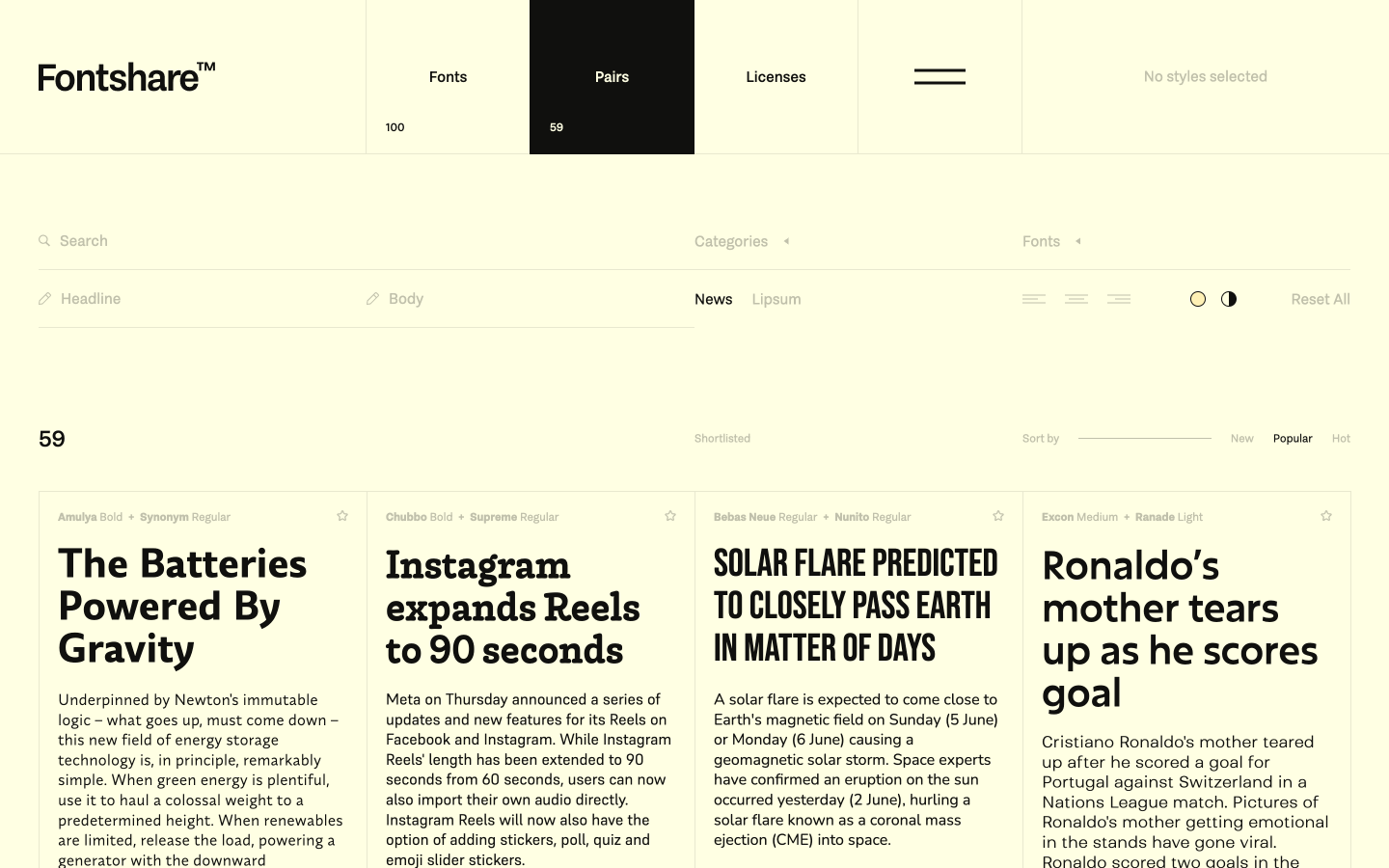
Fontshare is a free type library from Indian Type Foundry, featuring 100 quality typefaces, variable fonts, and curated pairings built for all designers.
The Indian Type Foundry launched Fontshare as an answer to a real problem: designers working on tight budgets often settle for low-quality fonts or risk licensing violations. The platform removes that friction entirely. Every typeface on Fontshare downloads free, and the ITF Free Font License covers personal and commercial use without restrictions on print, digital, or broadcast work.
The catalog currently holds 100 families. Most carry the Fontshare Originals label, meaning they were designed in-house at ITF specifically for this platform. Satoshi, one of the most downloaded families, is a geometric grotesque available in 10 styles and a variable font file. The variable version lets designers control weight along a continuous axis — useful for responsive typography where a single file must span multiple contexts.
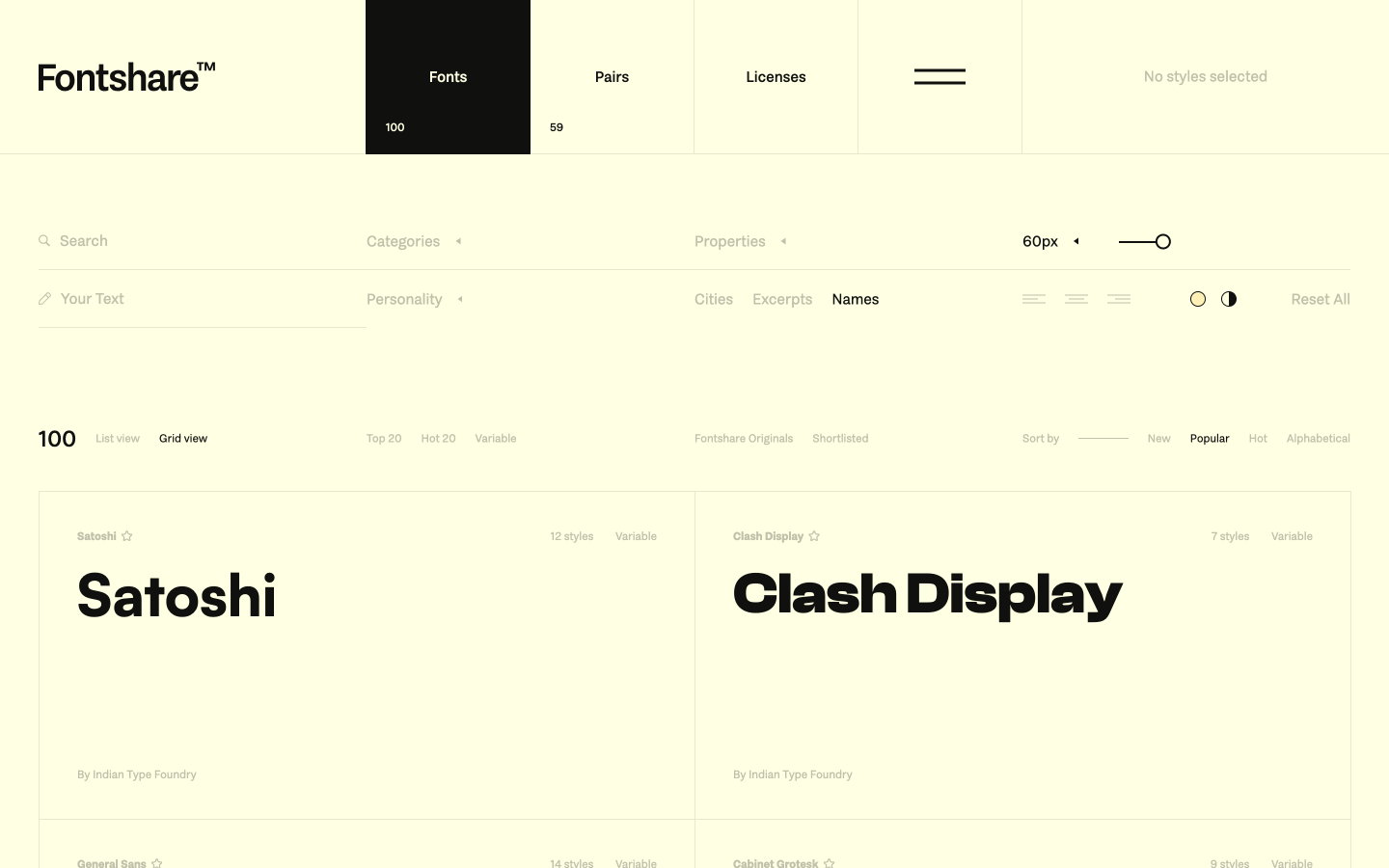
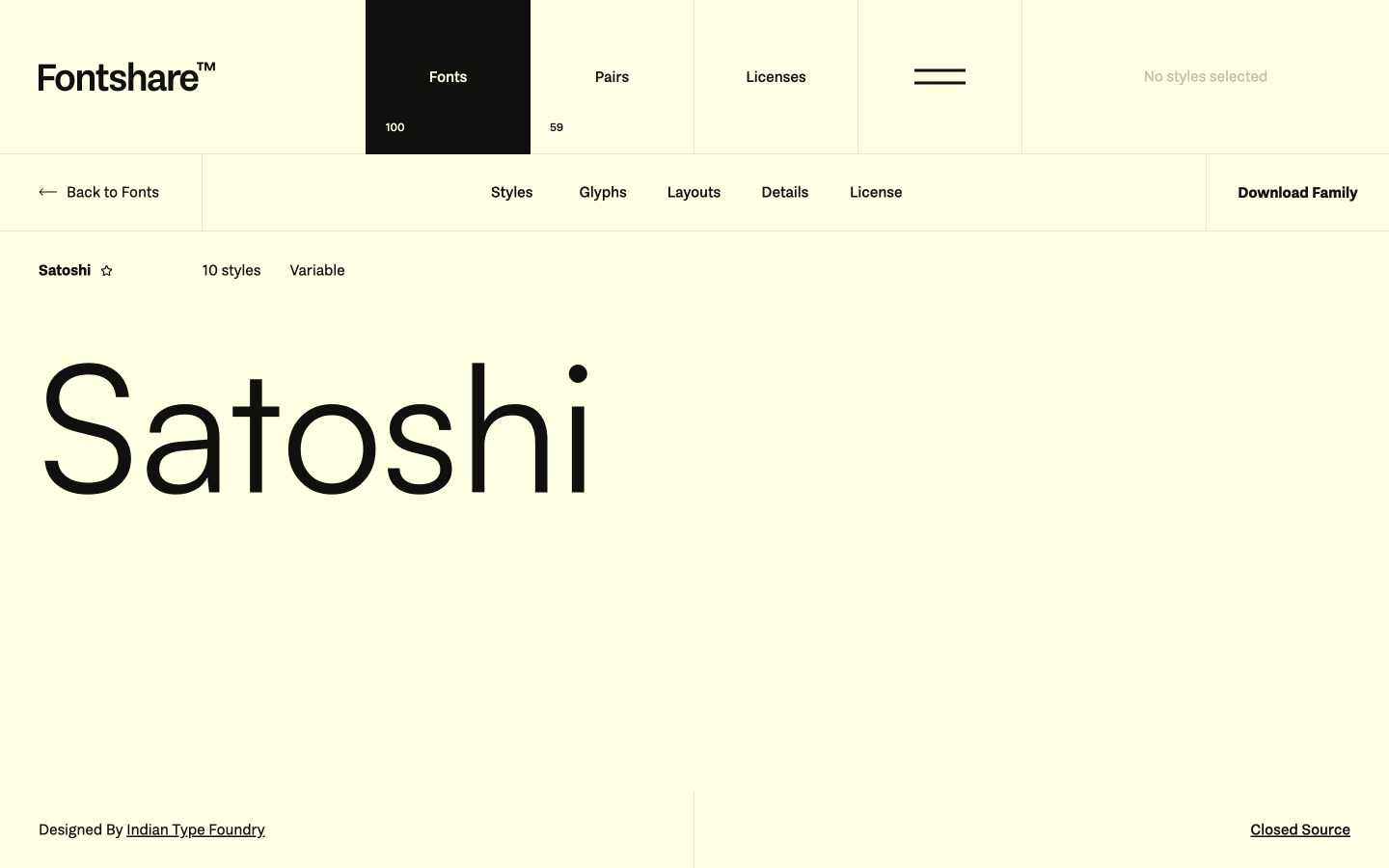
Browsing Free Fonts on Fontshare
Clash Display sits at the opposite end of the spectrum from Satoshi. Its letterforms push into ultra-wide territory at heavy weights, and the contrast between thick and thin strokes is deliberate and sharp. General Sans takes a more neutral approach: it reads cleanly at body sizes while holding its own as a display face when scaled up. Cabinet Grotesk adds optical variety, with softened terminals that give it a friendlier tone than a strict geometric sans.
The browse interface reflects the same typographic care as the fonts themselves. A size slider adjusts preview scale from 10px to 200px. Specimen modes switch between names, city names, excerpts, and user-entered text. A Pairs section offers 59 curated font combinations — each rendered as a real editorial layout so designers can evaluate how headline and body weights work together before downloading.